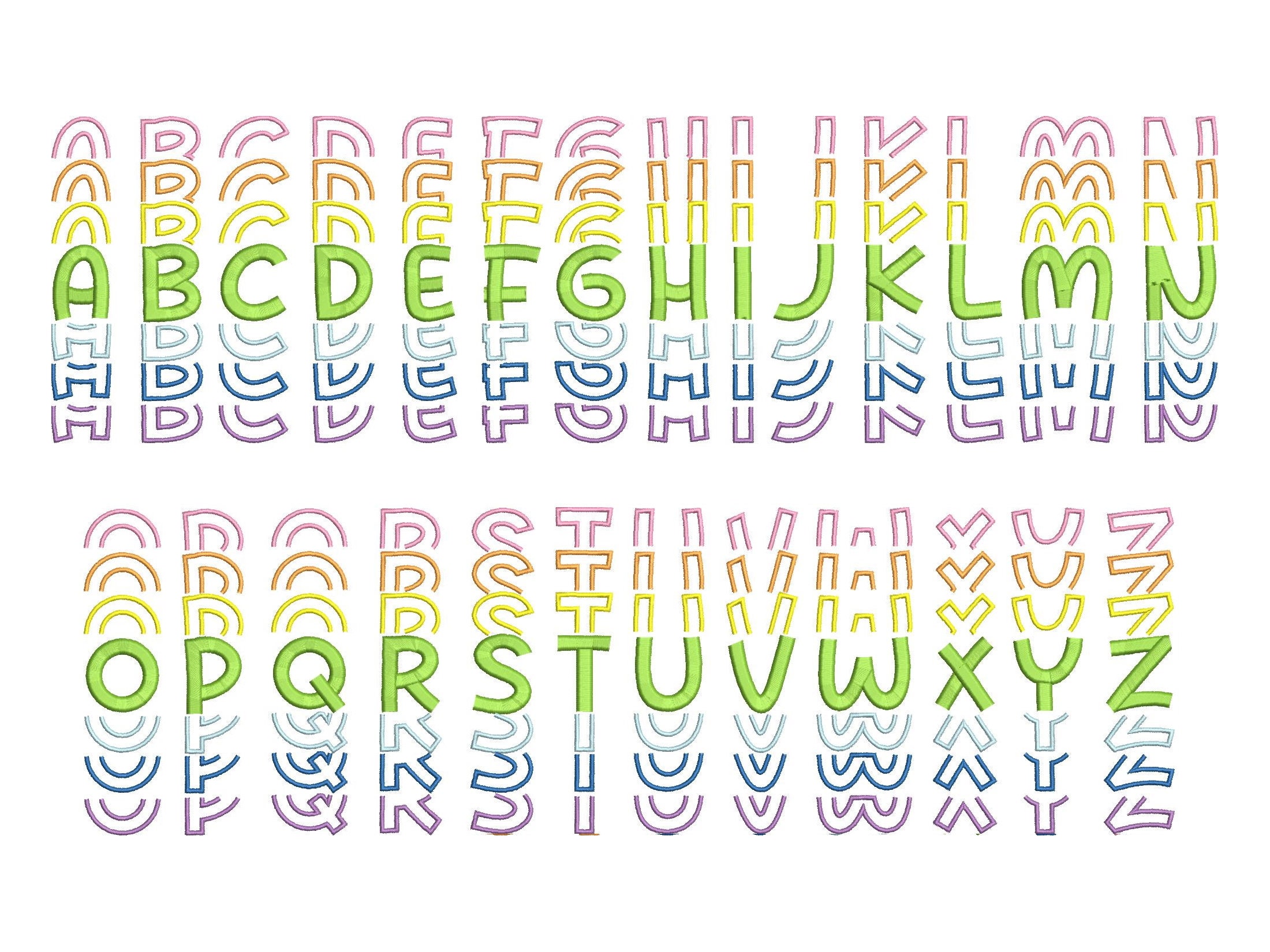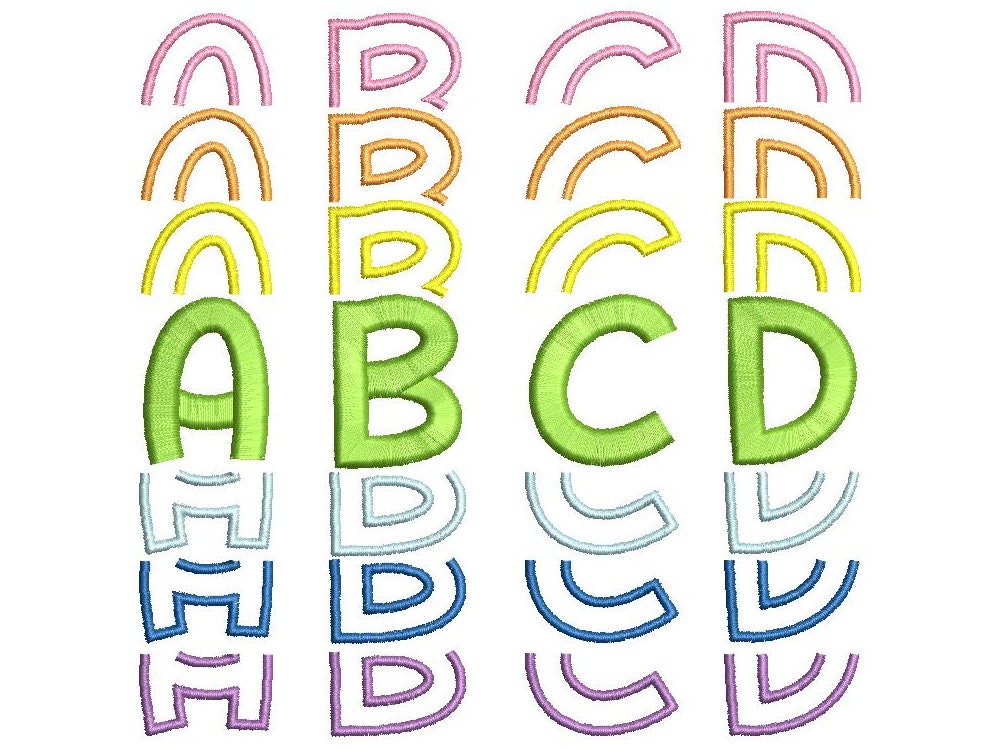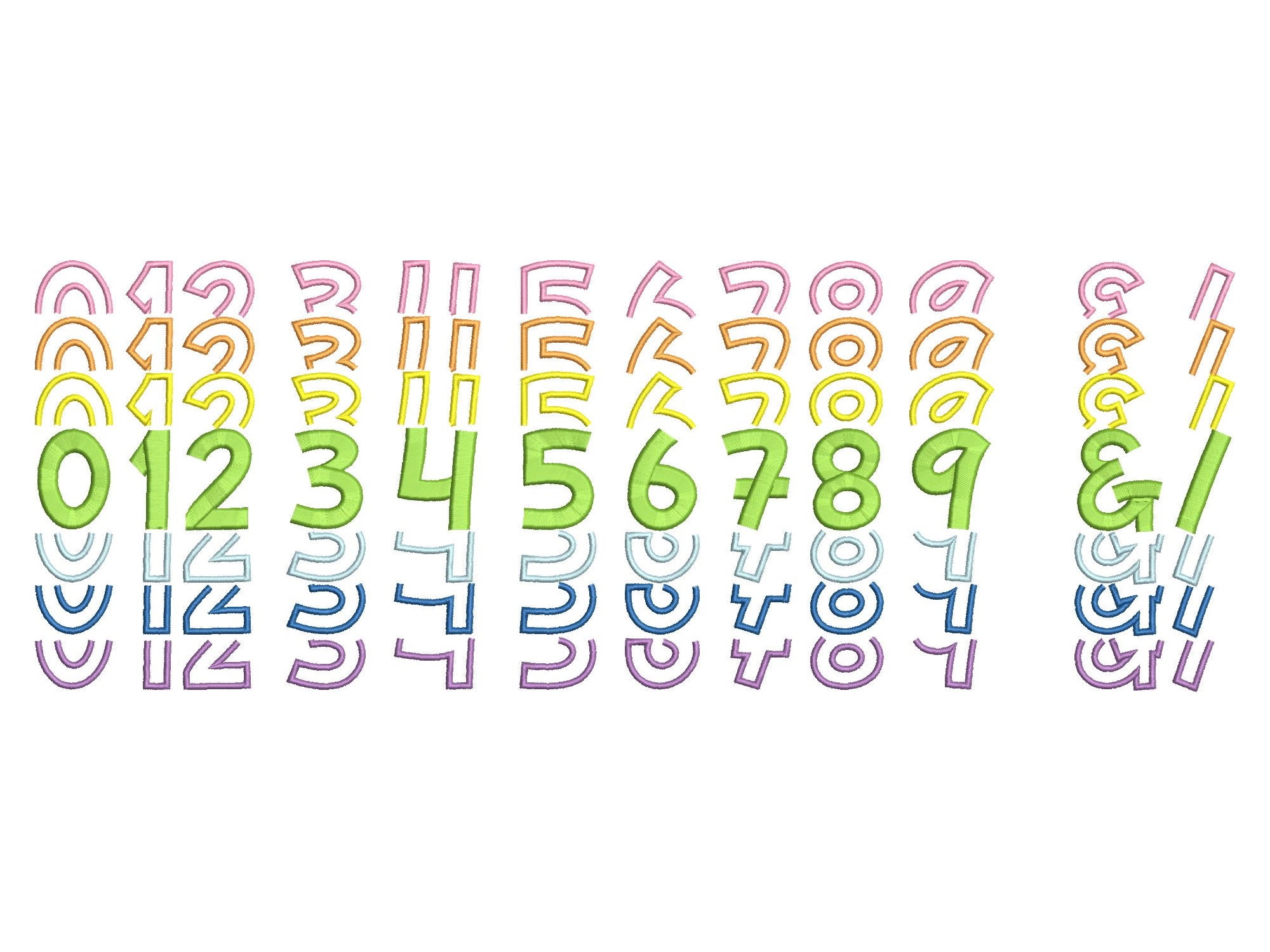
Stacked Font, BX included! Satin stitch and outline alphabet letters, kids colorful awesome trend machine embroidery designs in many sizes
The whole alphabet
A-Z uppercase, numbers 0-9 and special marks & /